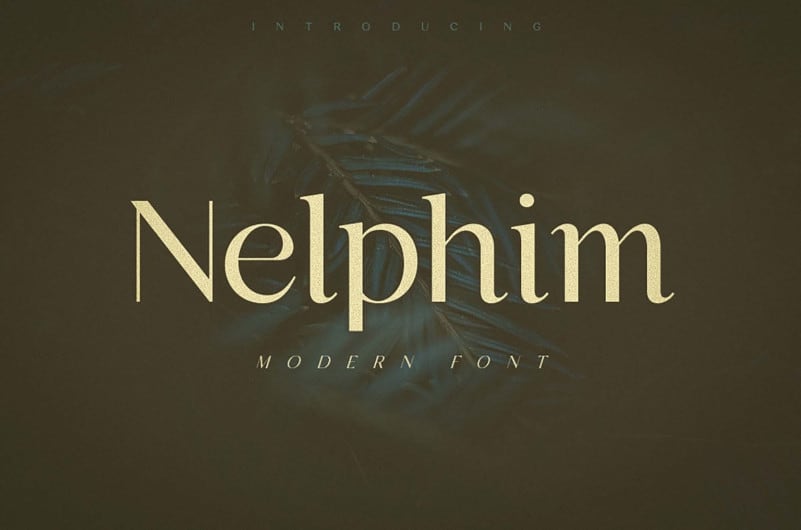
Nelphim Sans Serif Font
Nelphim Sans Serif Font adds a lot of personality to any Editorial Design, Branding Project or User Interface. It’s designed and shared by Unblast. And It’s a modern font whose characters allow each element to have its moment of glory. If you can’t decide between serif and sans serif letters, you don’t have to pick anymore with Nelphim. Its innovative designs, as well as multi-lingual characters, bring an unusual presentation where originality manifests itself with elegance. The wonderful designs of Nelphim, which although modern, hold a classic touch, so you can retell of the tales of Greek Gods using Nelphim for new and updated book covers or introduce your businesses and brands, using this free font for typography art, online platforms, or ads and menus.